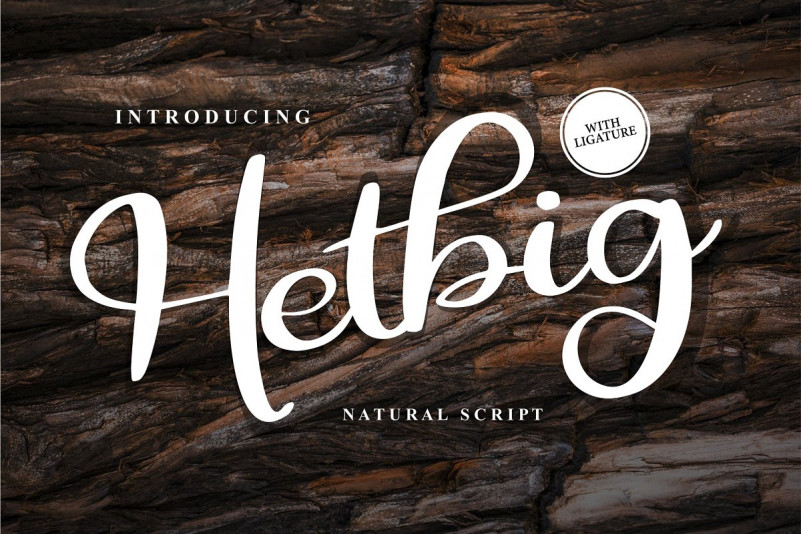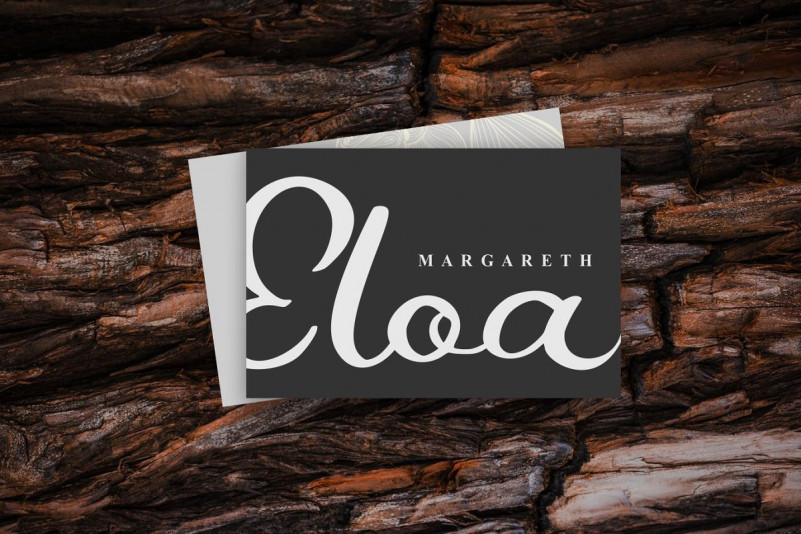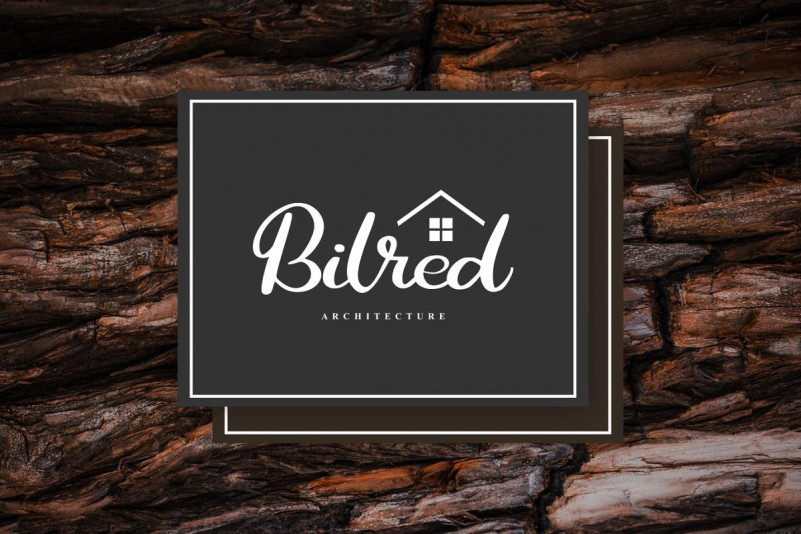
Hetbig Font
Hetbig | Natural Script Font with a calligraphy style, So beautiful on invitation like greeting cards, branding materials, business cards, quotes, posters, and more!